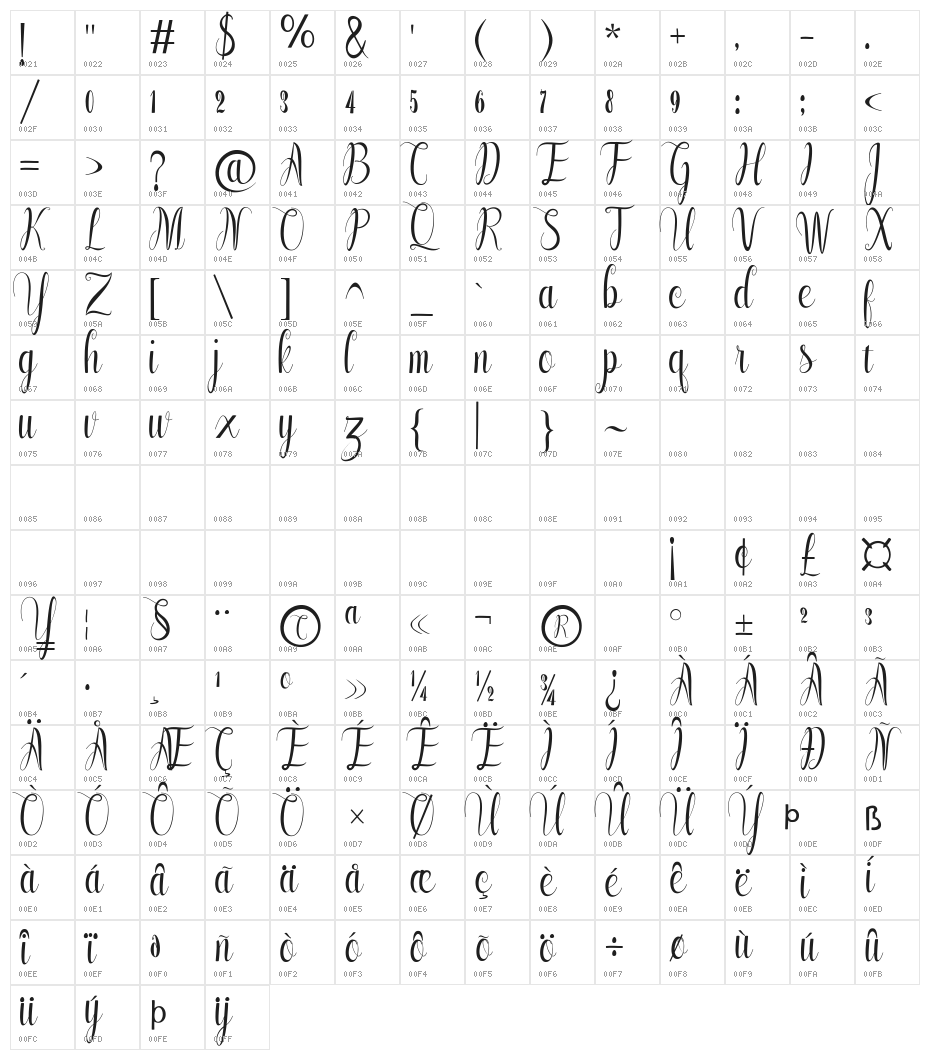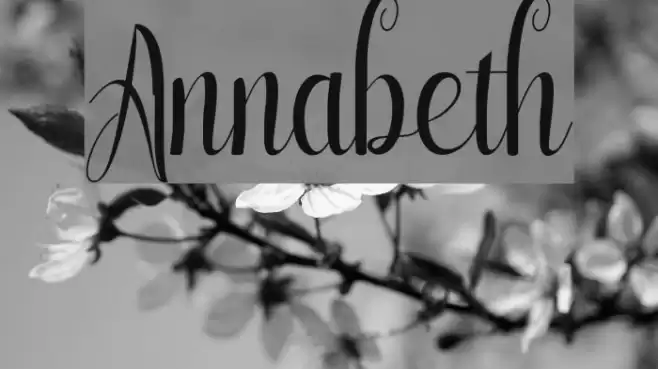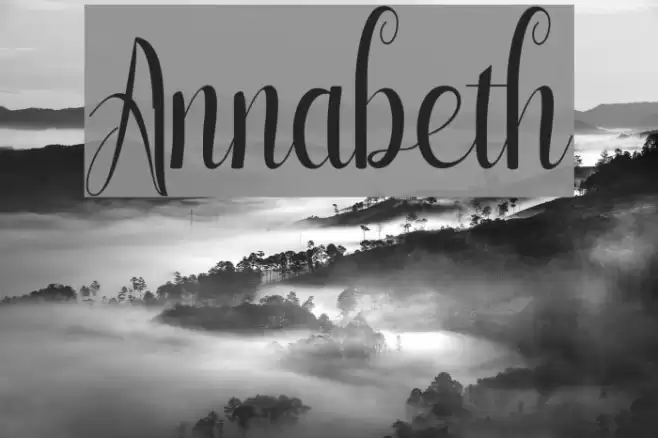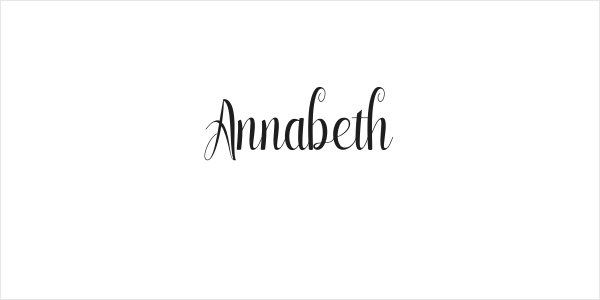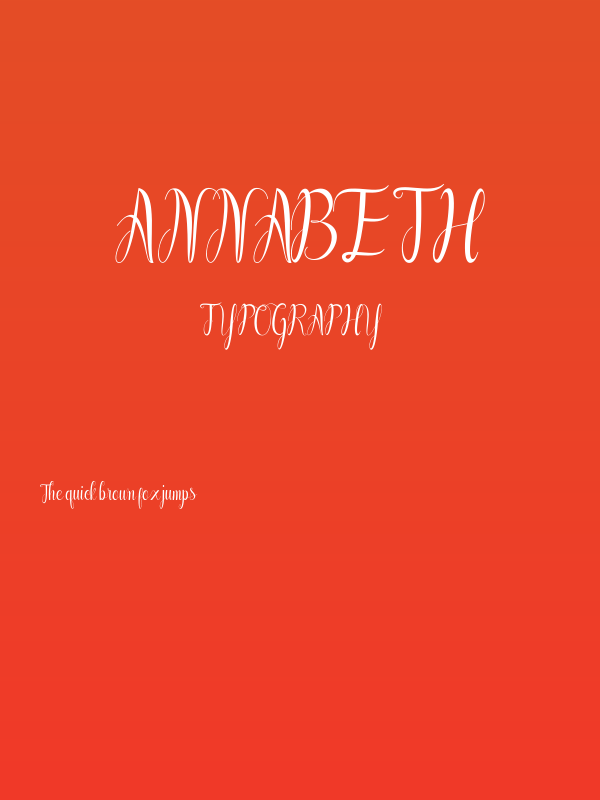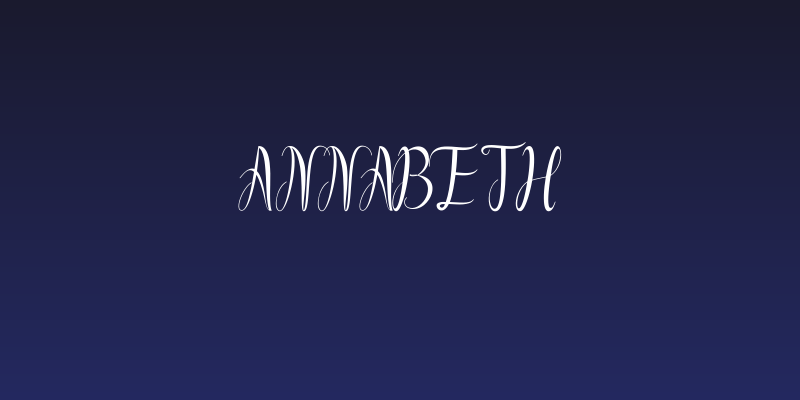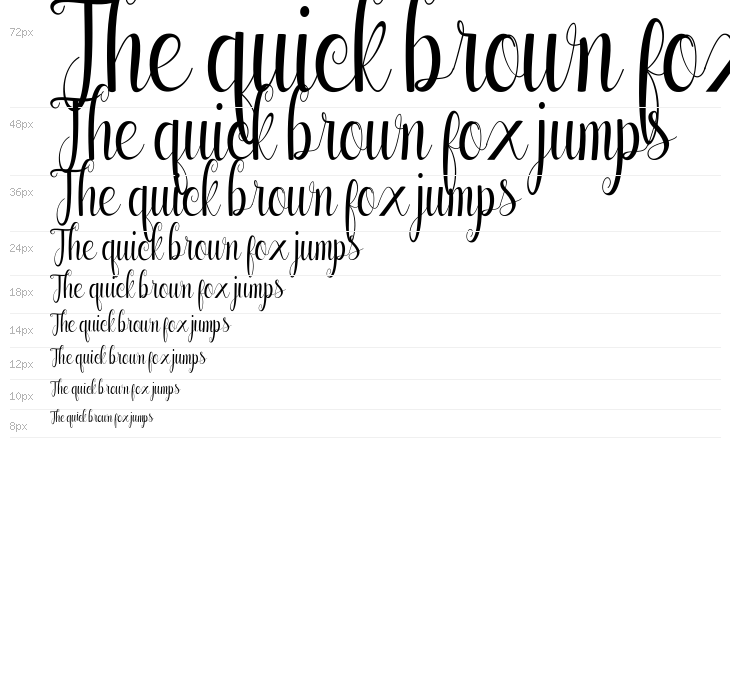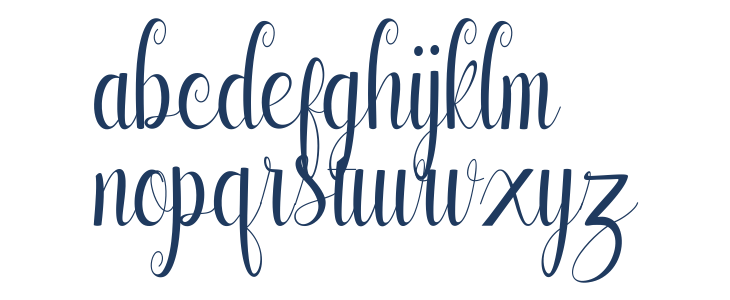
Annabeth Font
Annabeth Description
This font features an elegant and flowing script style, characterized by its graceful curves and fluid strokes. The uppercase letters are tall and slender, with decorative loops and flourishes that add a touch of sophistication. The lowercase letters maintain a consistent flow, with some characters extending below the baseline, enhancing the font's dynamic appearance. The numerals are bold and clear, ensuring readability while maintaining the overall aesthetic. Special characters are thoughtfully designed to complement the letterforms, making this font versatile for various applications.
Overall StyleElegant
Use CaseHeadlines, Invitations, Decorative text
Proposed ProjectsIdeal for wedding invitations, elegant branding, greeting cards, and decorative signage.